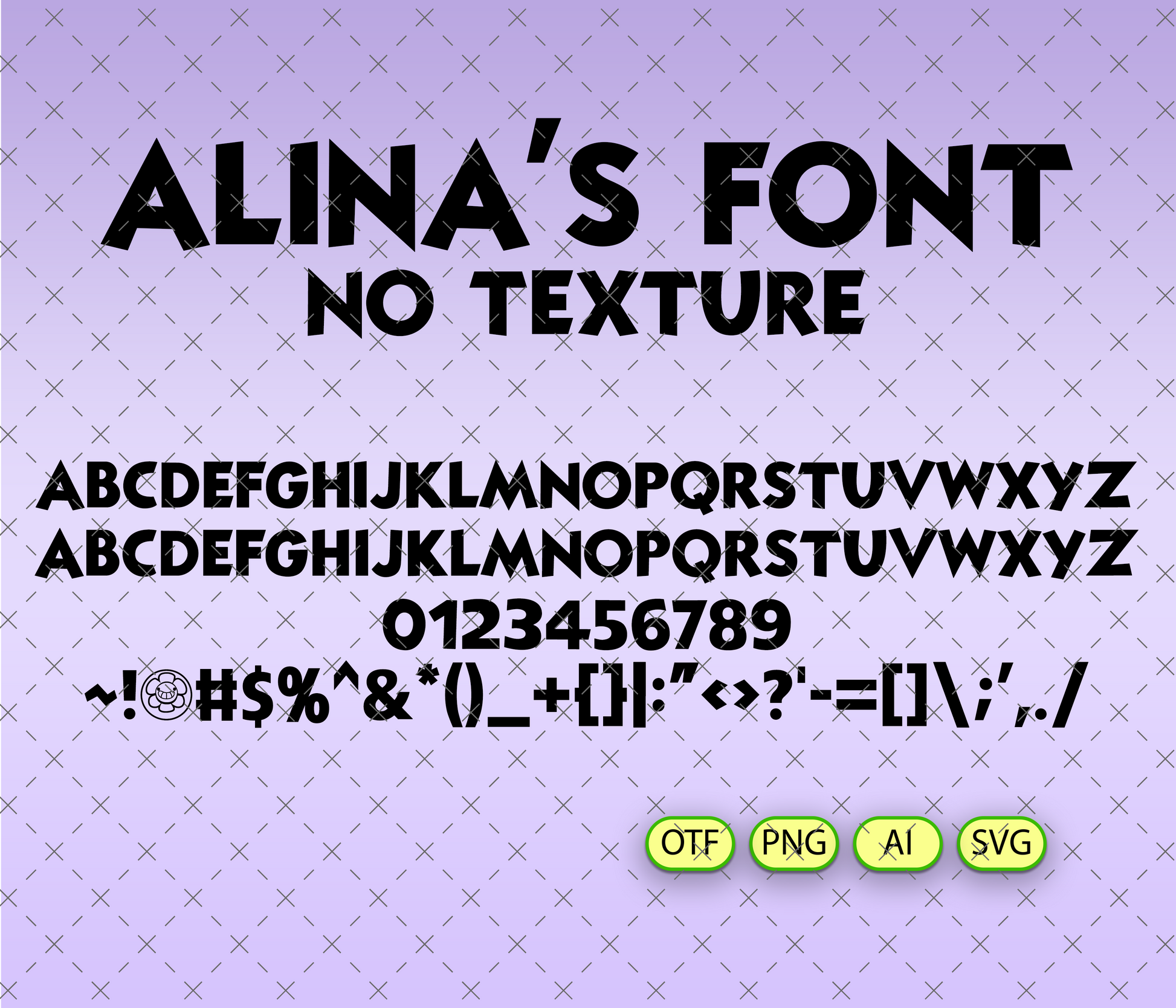
Playroom Panic Font
Playroom Panic Font Sleek Character Crisis
Step into the unsettling realm of corrupted playtime with our Playroom Panic font, capturing the essence of twisted toy companions and eerie entertainment venues. Perfect for horror gaming events, spooky party themes, character horror designers, and creative professionals, this font brings the streamlined, chilling energy of beloved playmates turned menacing to your projects. Create haunting invitations, eerie merchandise, or digital content with the polished, deceptive spirit of entertainment spaces hiding sinister mysteries.
Our Playroom Panic font features smooth, seemingly harmless letterforms with polished cartoon elements reflecting the sleek approach to corrupted entertainment design and playroom terror. The characters blend cheerful toy typography with underlying darkness, creating perfect fusion of playful innocence and refined horror aesthetics.